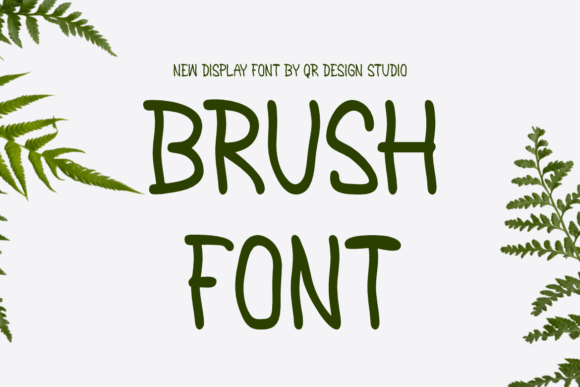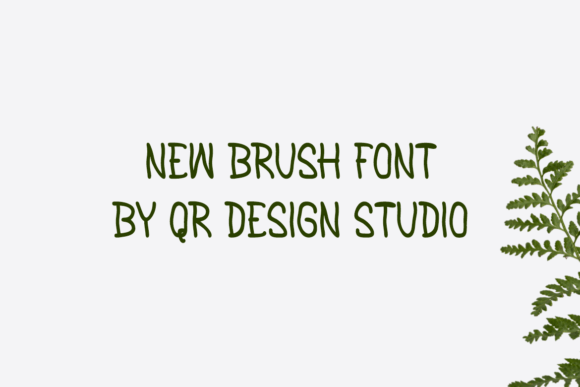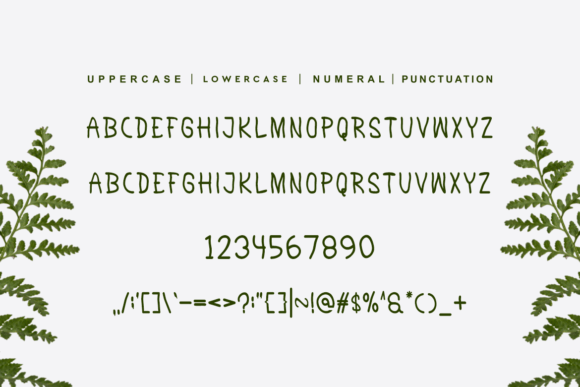
Introduction to Mono Snover Font
Mono Snover is a sweet and friendly handwritten font.
Key Features of Mono Snover Font
Why Choose Mono Snover Font?
Mono Snover Font offers exceptional quality and versatility, making it a valuable addition to your design toolkit. Whether you’re creating for personal projects or commercial use, Mono Snover Font delivers professional results.